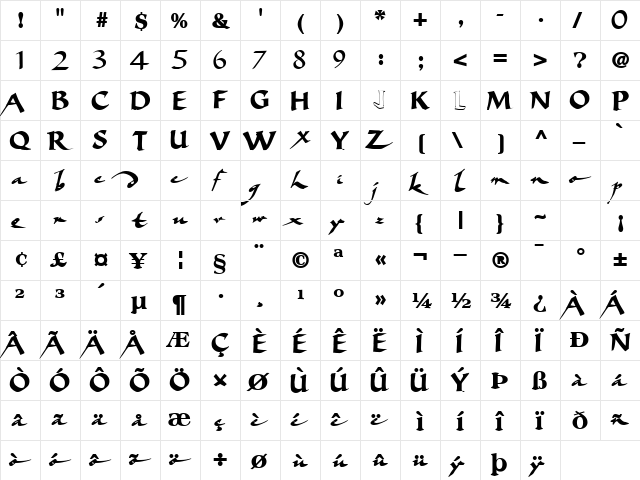
BigBrushFont19 Bold
Design Context for BigBrushFont19 Typeface
BigBrushFont19 brings a calligraphic fluidity to the page — its connecting strokes and expressive curves give it an unmistakably human quality. Its bold stroke weight gives it real presence on the page.
Font Pairing: Combine BigBrushFont19 with a simple geometric sans for maximum contrast — the tension between flowing curves and clean structure is a classic typographic pairing.
Pro Tip: Pair BigBrushFont19 with a clean sans-serif for supporting text. The contrast between fluid script and geometric structure creates an elegant typographic hierarchy.